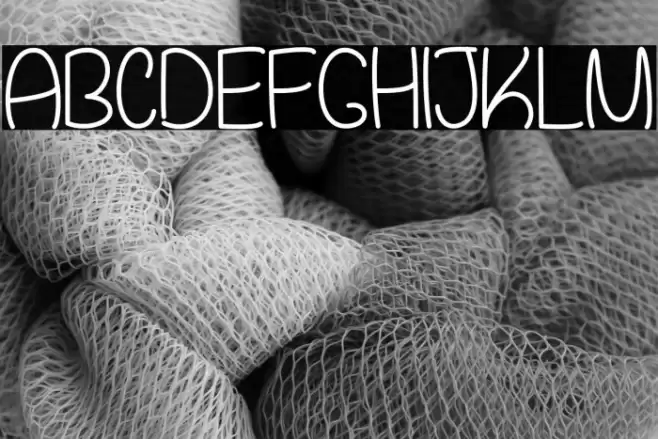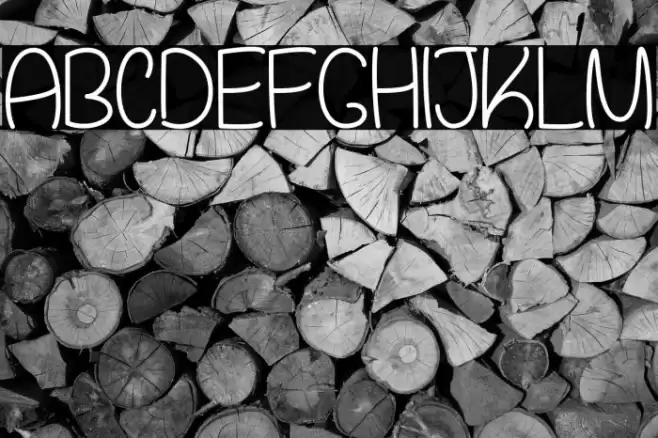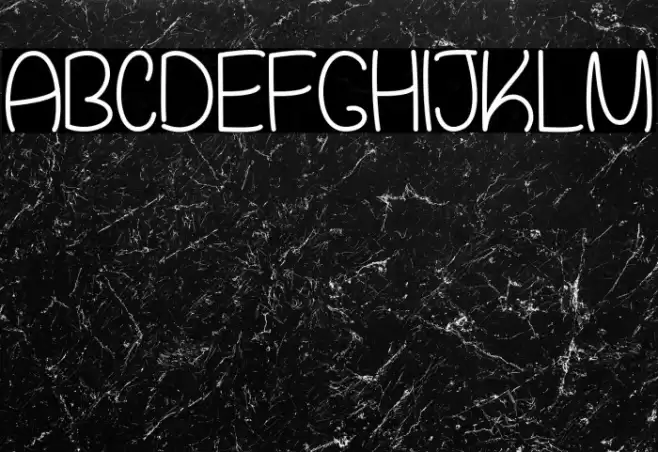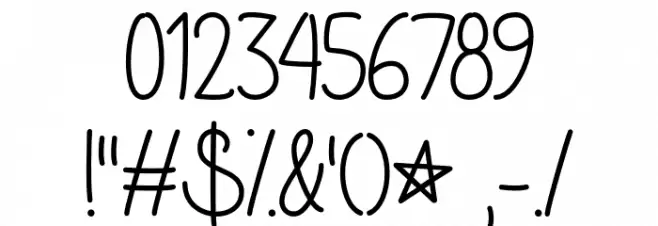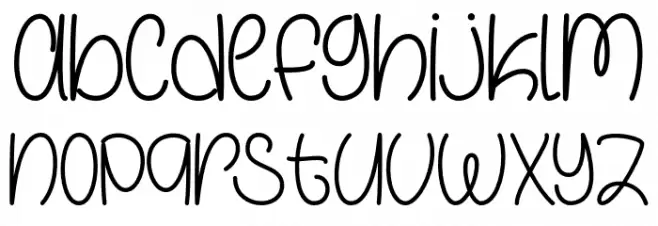
GalaxyBoy Font
GalaxyBoy Description
This playful and whimsical font features a handwritten style with smooth, flowing curves and a casual, friendly appearance. The letters are slightly elongated with rounded edges, giving it a unique and approachable look. The uppercase and lowercase characters maintain a consistent style, with a slight slant that adds to its informal charm. The numbers and special characters are designed to match the overall aesthetic, making it versatile for various uses. Its distinct personality makes it suitable for creative projects that require a touch of fun and individuality.
A playful, handwritten font with smooth curves and a casual style from Uncategorized fonts.
- Proposed Projects: Ideal for children's books, greeting cards, playful branding, and creative social media graphics.
- Overall Style: Playful, Casual, Whimsical
- Use Case: Headlines, Logos, Creative projects